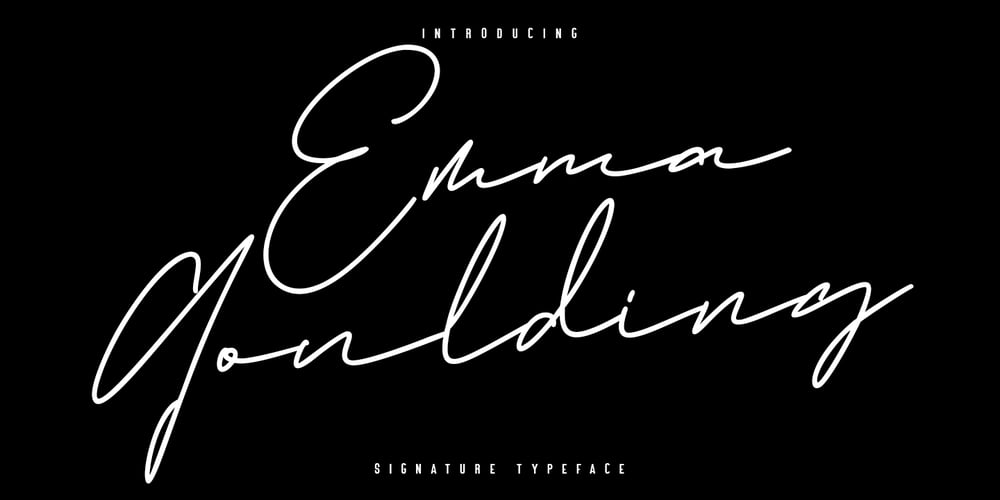
Emma Goulding
Emma Goulding font
Emma Goulding Font Family was designed by Gilang Maulana and published by Maulana Creative. Emma Goulding contains 2 styles and family package options. Give your designs an authentic handcrafted feel. Emma Goulding is perfectly suited to signature, stationery, logo, typography quotes, magazine or book cover, website header, clothing, branding, packaging design and more. Includes an Alternate style.Thanks for use this font ~ Maulana